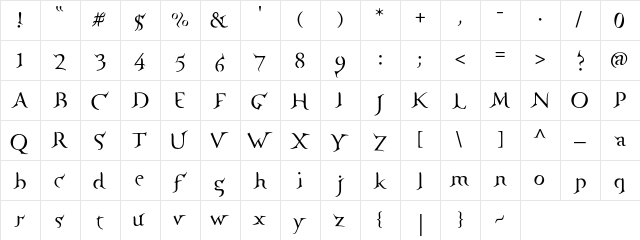
Faux Regular
Design Context for Faux Typeface
Faux is a composed and adaptable typeface that performs quietly and consistently across a wide range of design contexts.